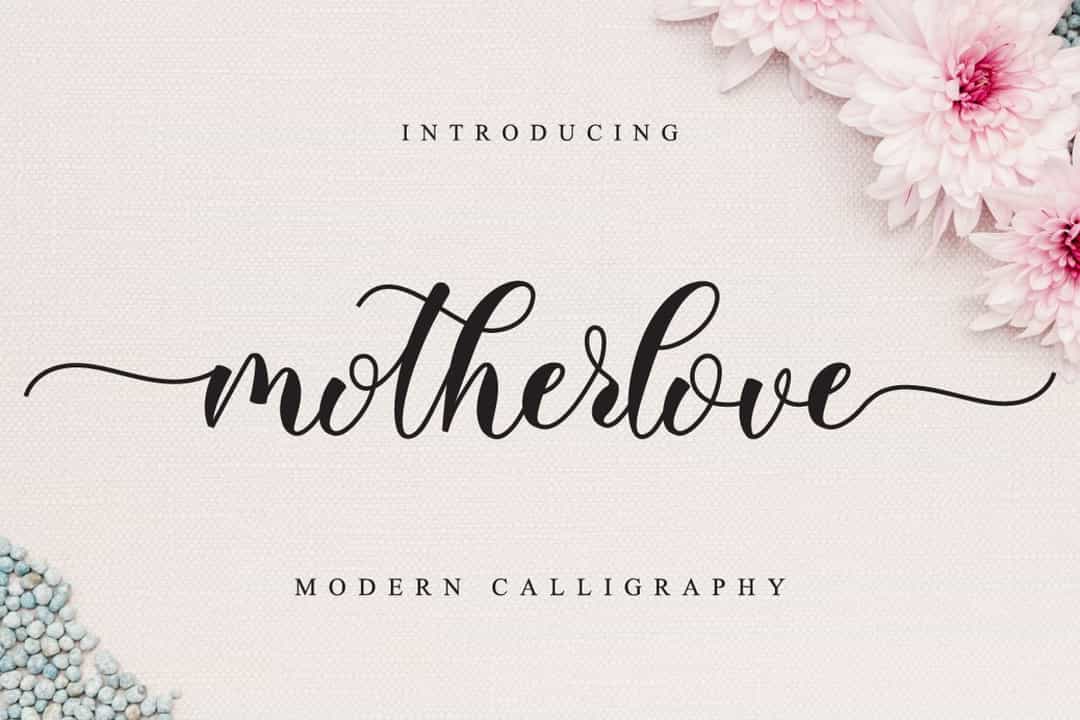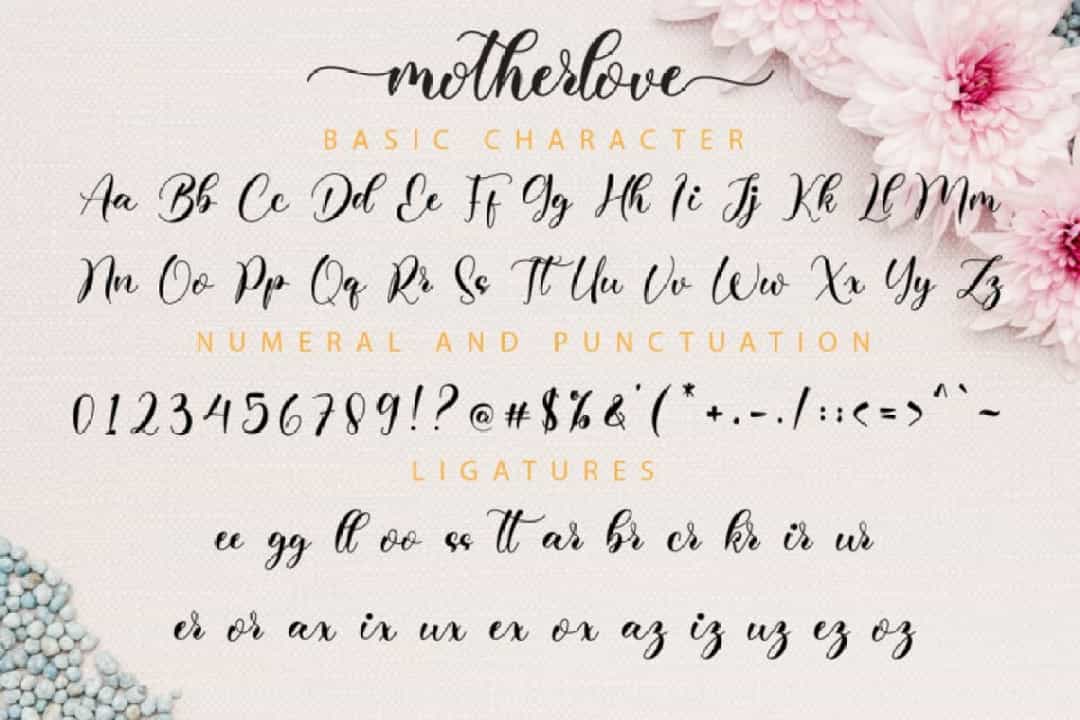
Motherlove is a beautiful, fine font that is ideal for making wedding invitations, thank you cards, greeting cards, quotes, logos, business cards, and any other design that requires a touch of the handwritten style. The Font is PUA encoded, and that means all the glyphs and swashes are easily accessible!